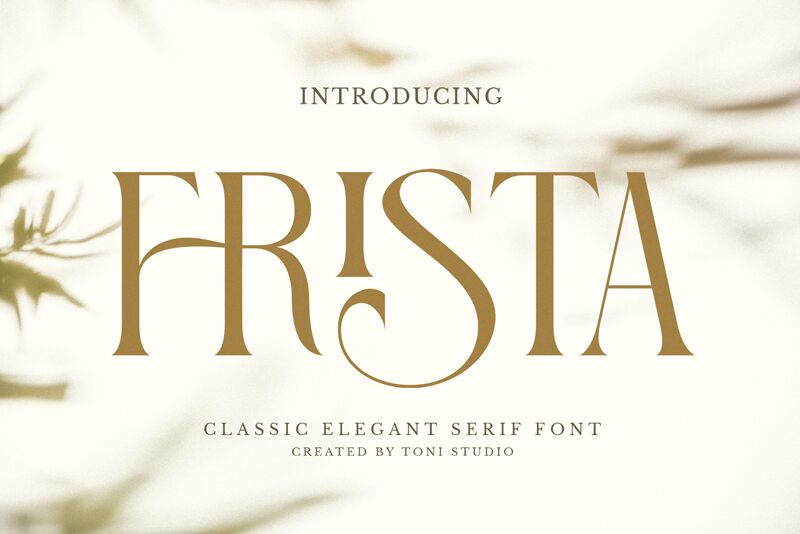
FRISTA
Frista font, designed by ToniStudio, exudes a unique charm with its elegant serif style and condensed form. This font captivates with its refined details and sophisticated curves, offering a perfect blend of modernity and classic aesthetics. The striking appearance makes it ideal for projects that seek to convey professionalism while adding a touch of flair.
Its visual appeal is further enhanced by bold letterforms that stand out without overpowering the design. Frista is versatile enough for branding, editorial projects, or digital presentations, ensuring clarity and sophistication in any context. Whether you’re creating eye-catching headlines or refined body text, this free font elevates your design with ease. Download the Frista font today and explore its potential to enrich your creative endeavors!